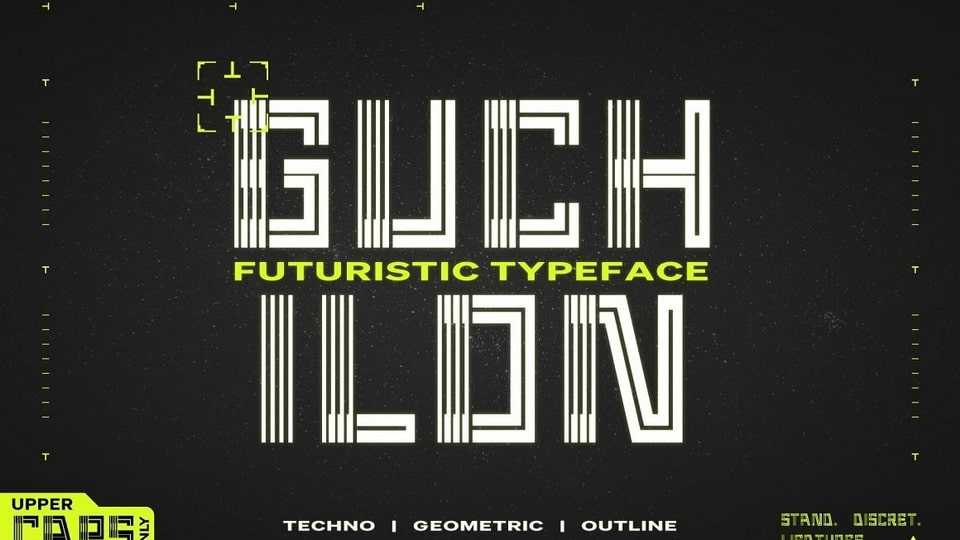
Download Guchilon font, a futuristic display typeface. Guchilon is a sci-fi inspired font designed for posters, editorial and advertising use.
Designer: Drizy Studio